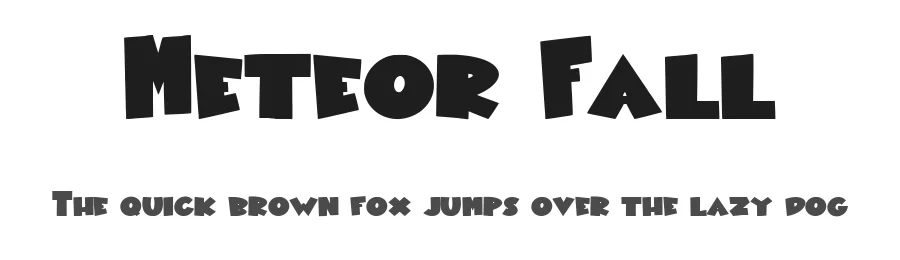
About Th!ck B!tch Font
Th!ck B!tch is a decorative font designed by Marty Bampton. It includes 183 glyphs, a regular weight, TTF (TrueType) format, and 189 languages. Th!ck B!tch is free to download; check the license details on this page before commercial use. Decorative fonts like Th!ck B!tch work best for logos, posters, packaging, and standout headlines.
Th!ck B!tch Font is a decorative font that shines as a display or heading face. Pair it with a clean sans-serif or serif font for body text β the contrast creates a clear hierarchy while the two styles stay balanced and easy to read.